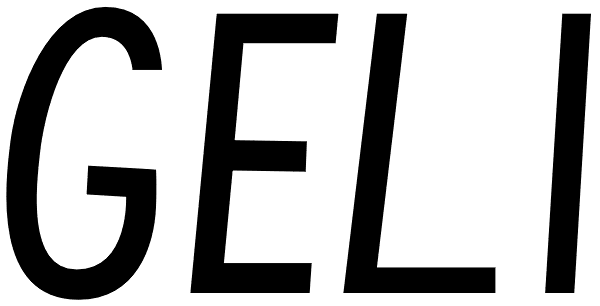
Geli
It’s a mixture of digital exactness and analog freedom. With over 130 Opentype features, the font can change its look from strict to charming twirly. GELI offers many different ways to highlight words, which gives the font a personal character. It...